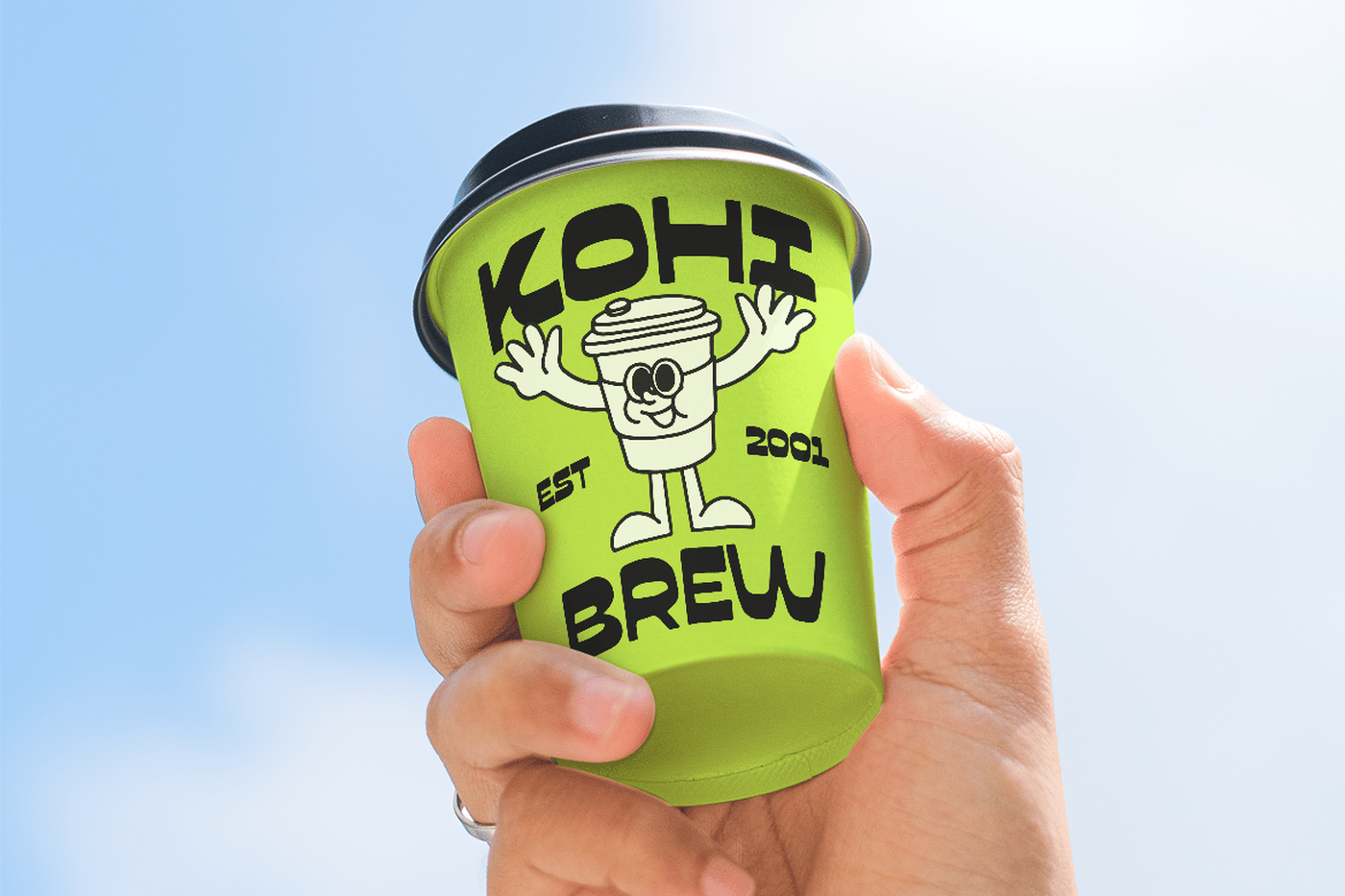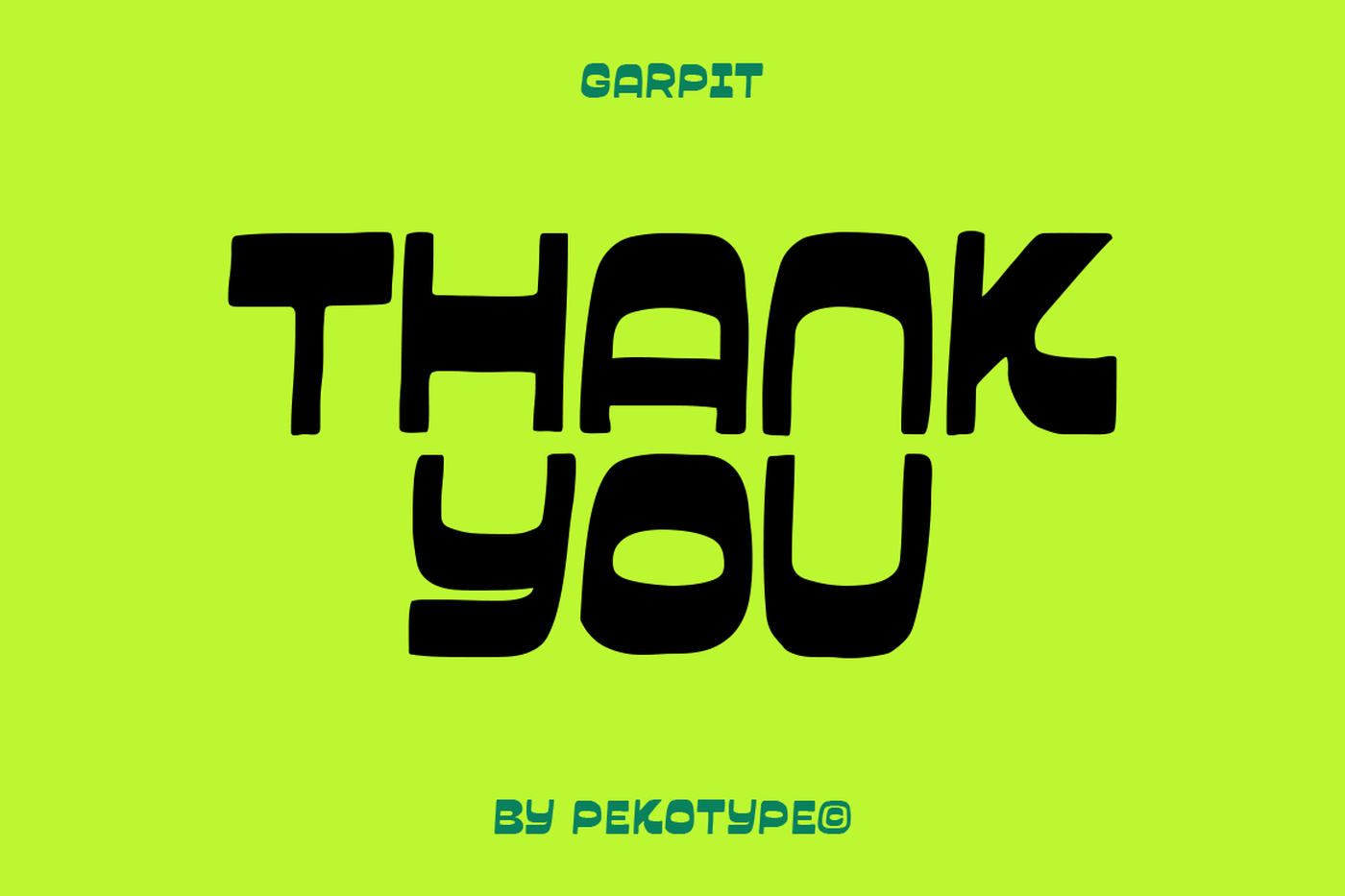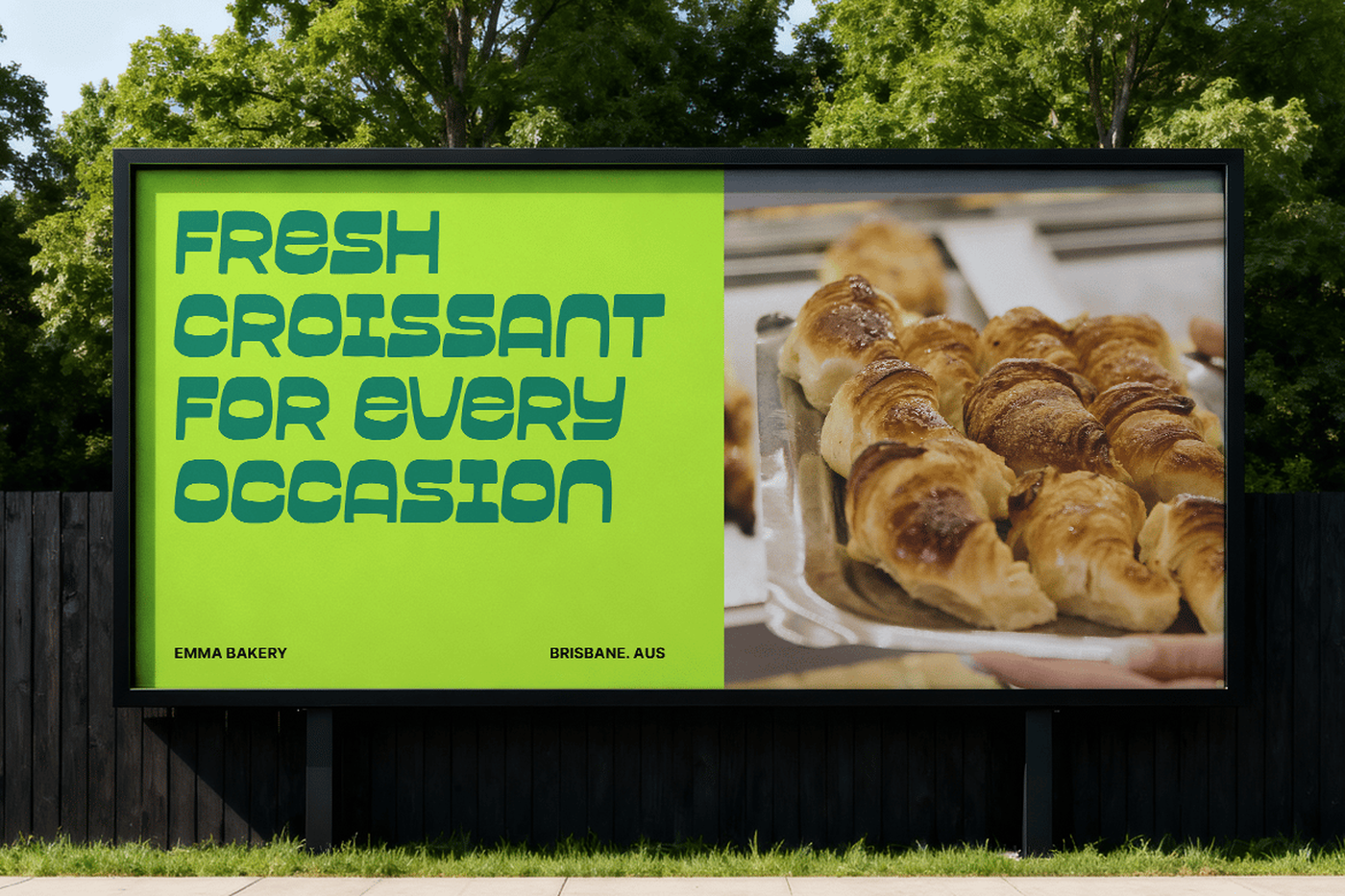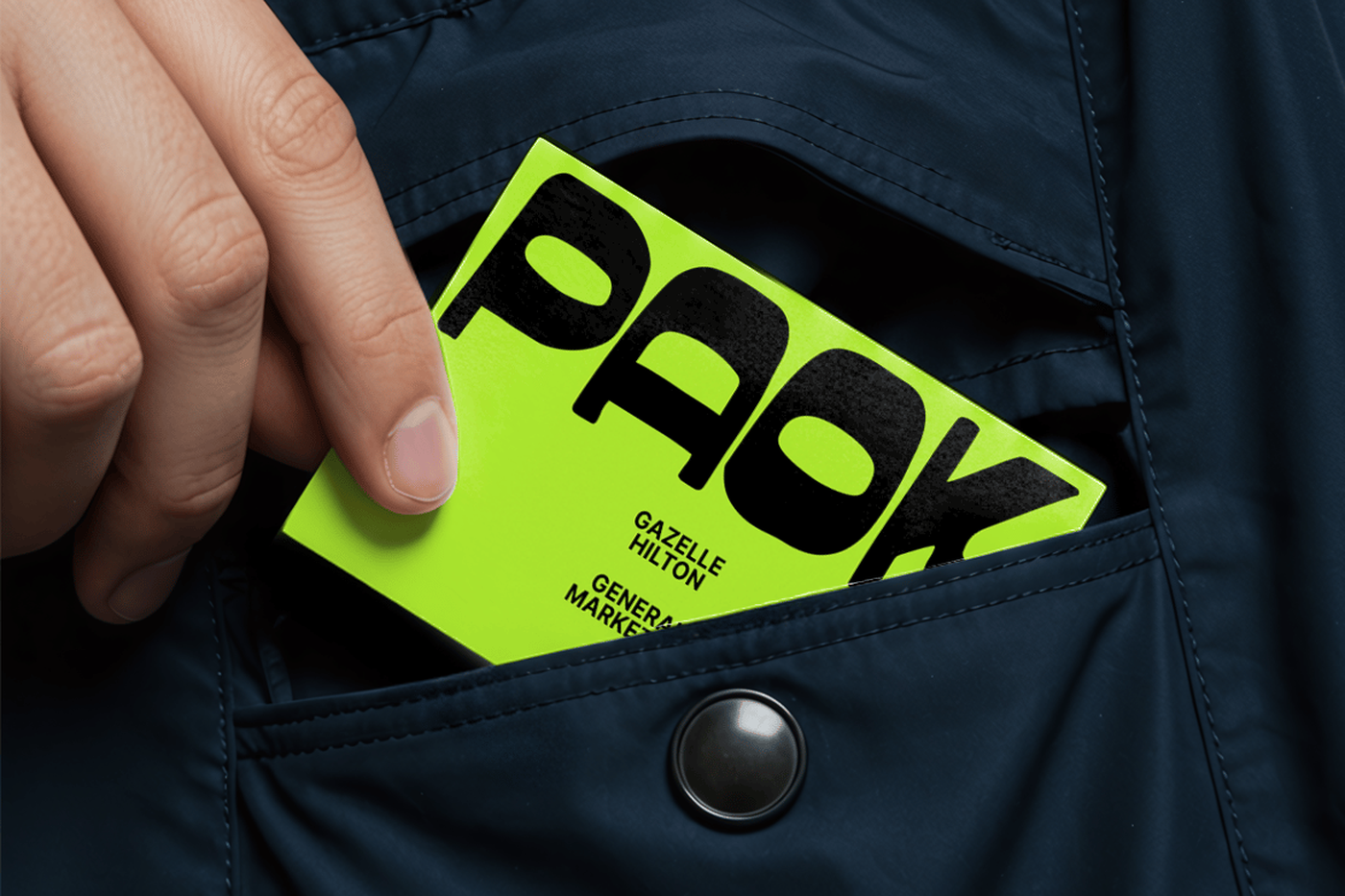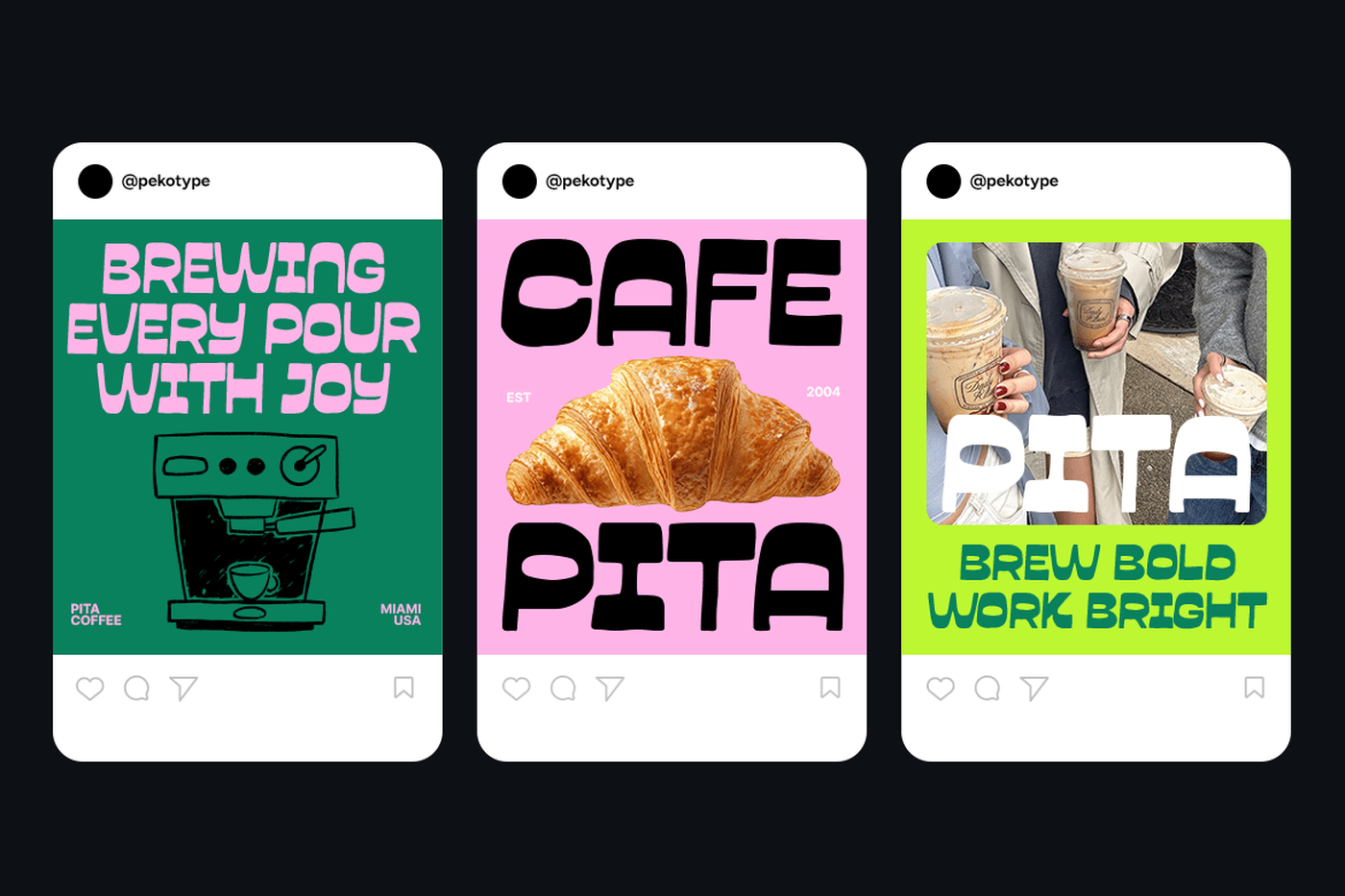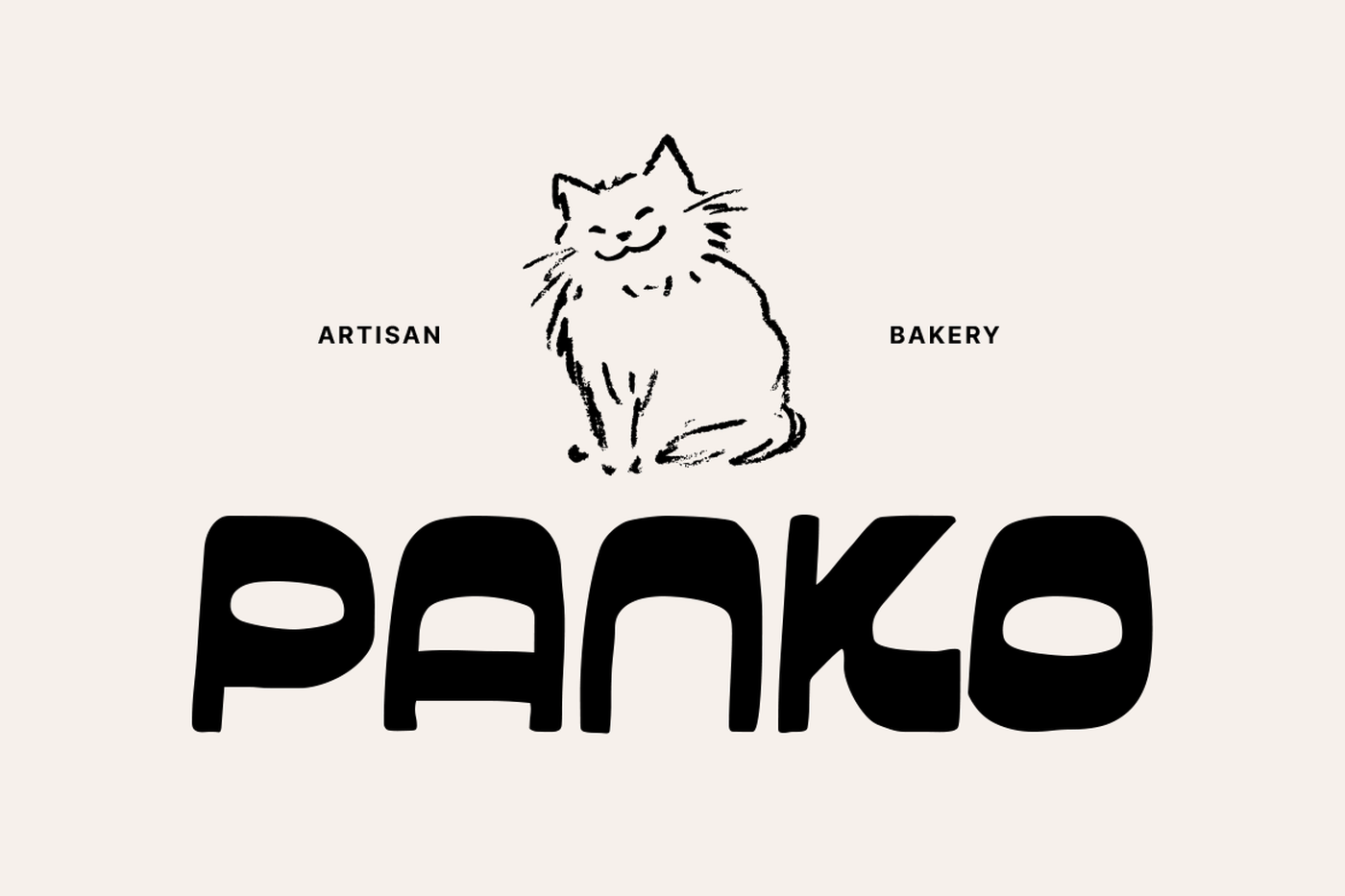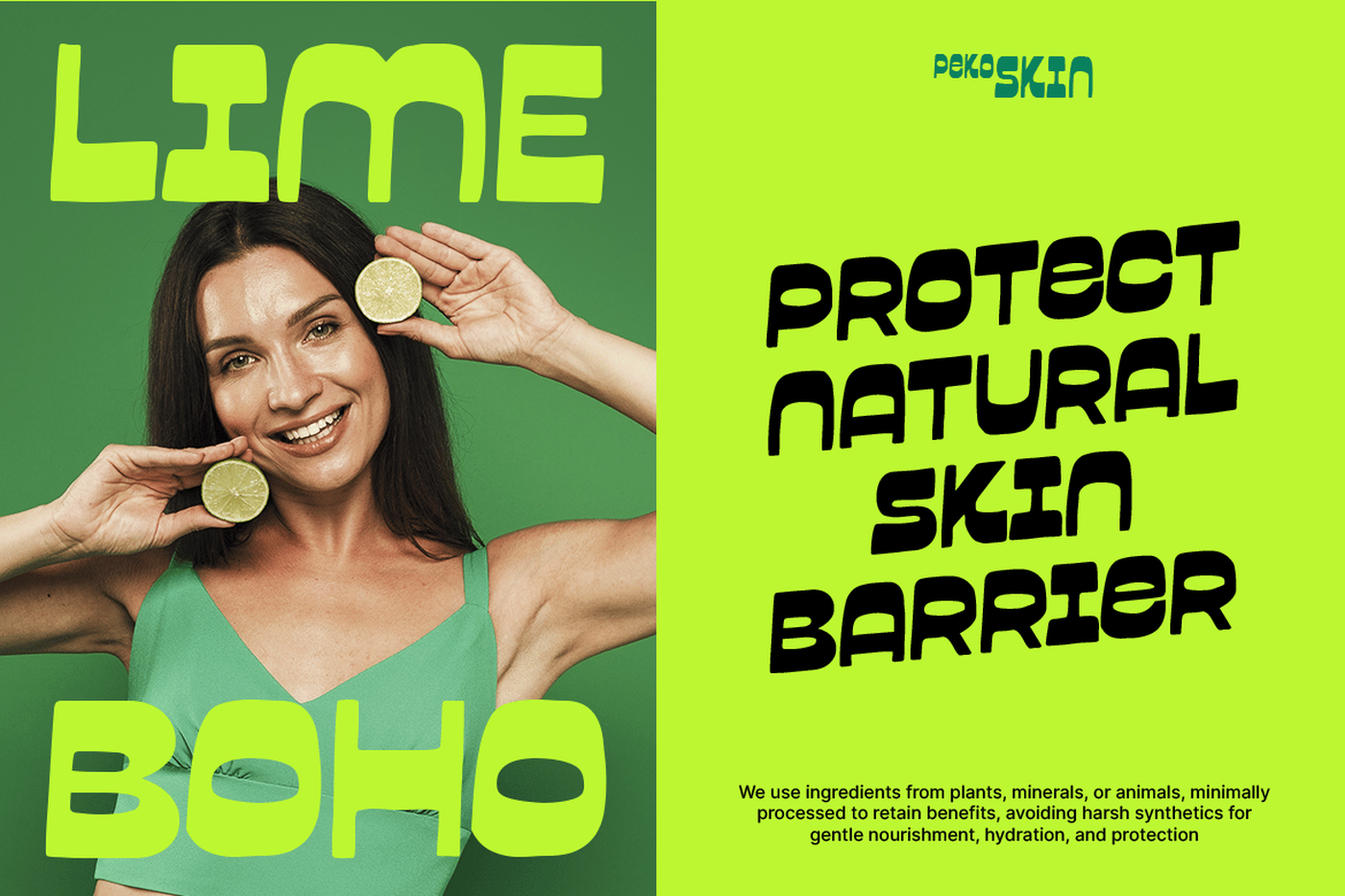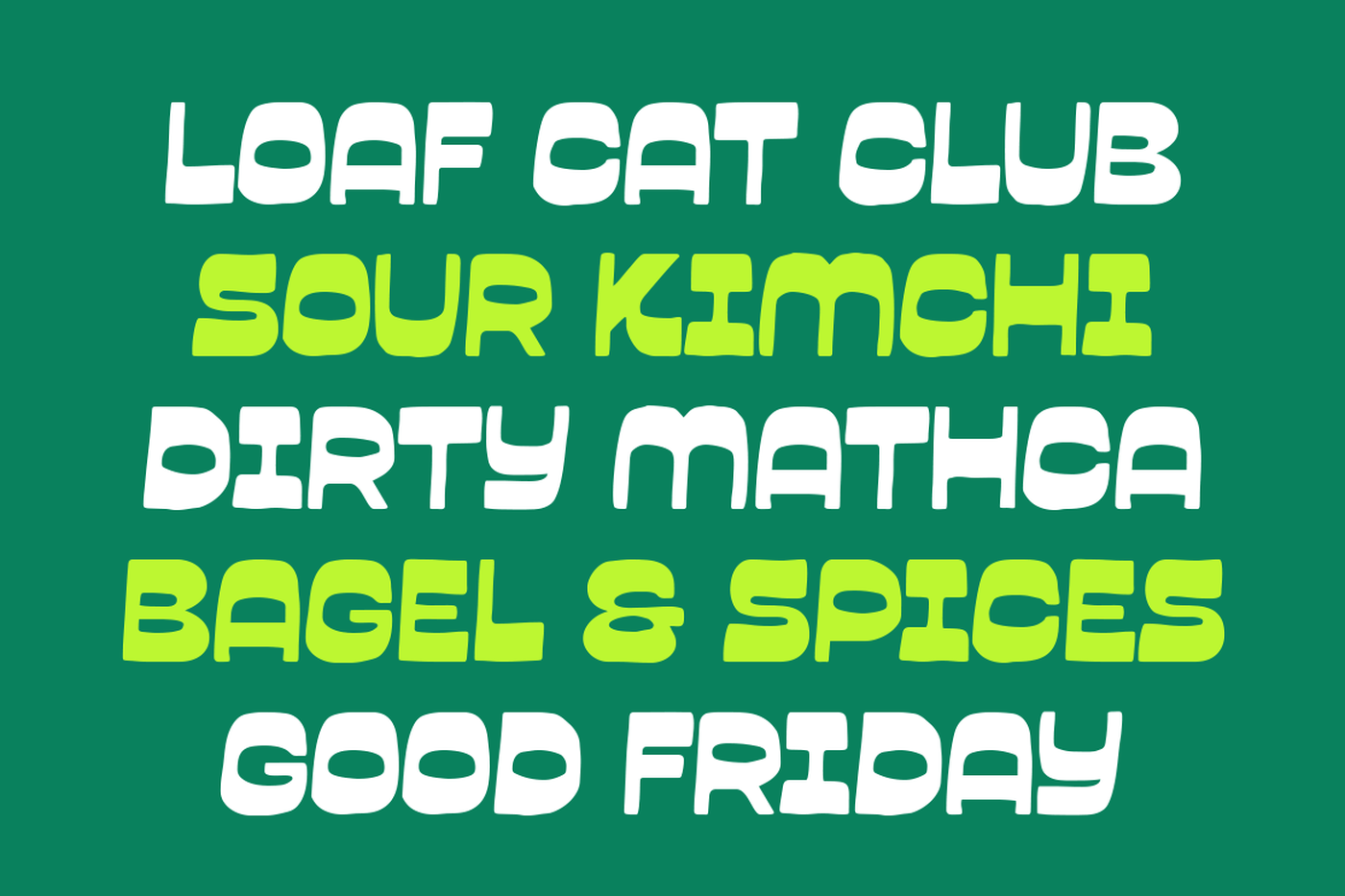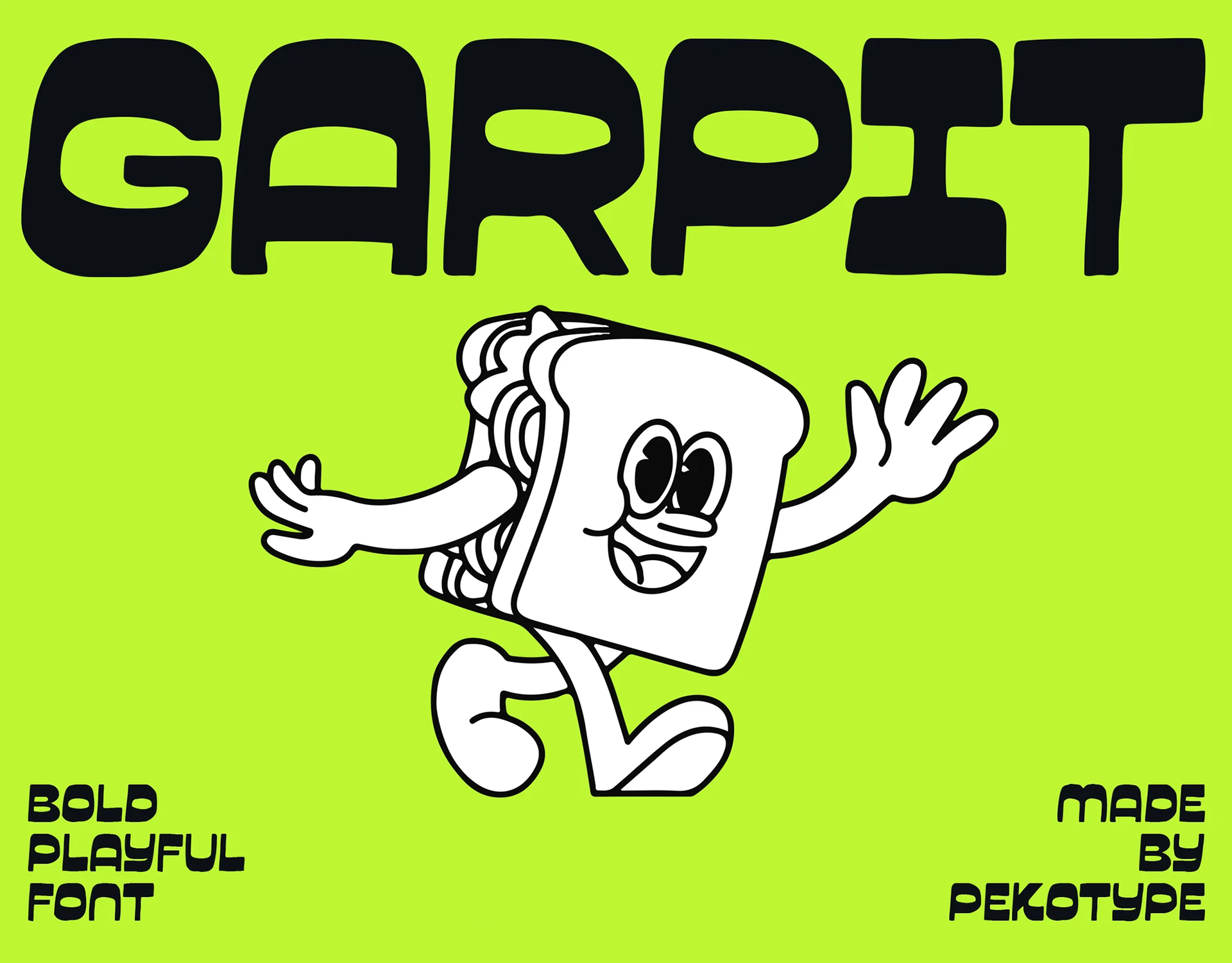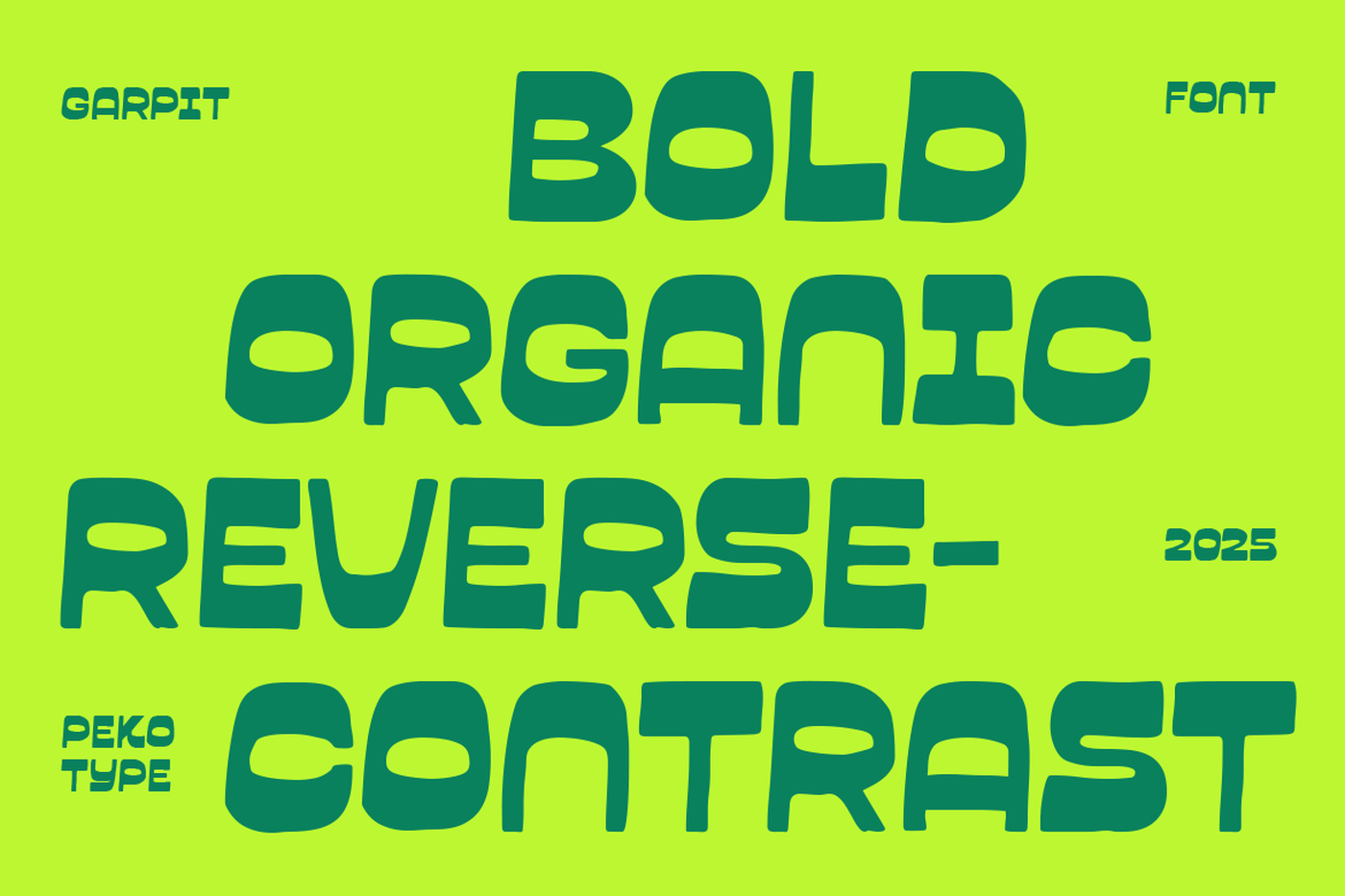
GARPIT - Bold Playful Font
GARPIT is a bold, playful, and organic reverse-contrast typeface designed to grab attention instantly. Built as an all-caps font, GARPIT delivers a strong visual voice with chunky shapes, quirky curves, and unexpected stroke contrast that feels modern, expressive, and full of character.
Inspired by bold food branding, street visuals, and fun marketing aesthetics, GARPIT is perfect for logos, branding systems, packaging, posters, headlines, social media graphics, and promotional designs. Its organic construction gives a friendly and approachable feel, while the reverse contrast adds uniqueness and high memorability—making your message stand out in crowded visual spaces.
Designer: Peko Type
Font: GARPIT